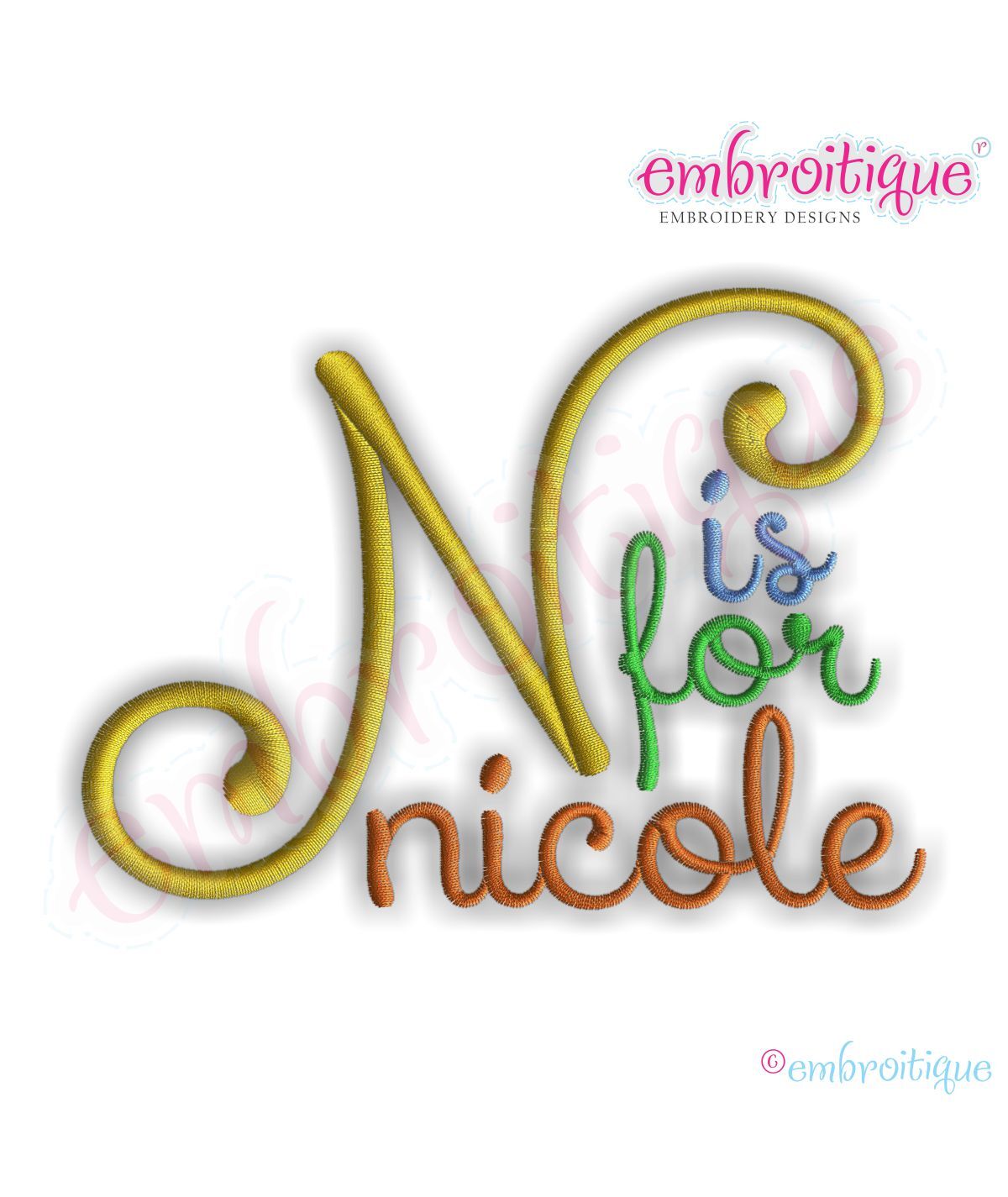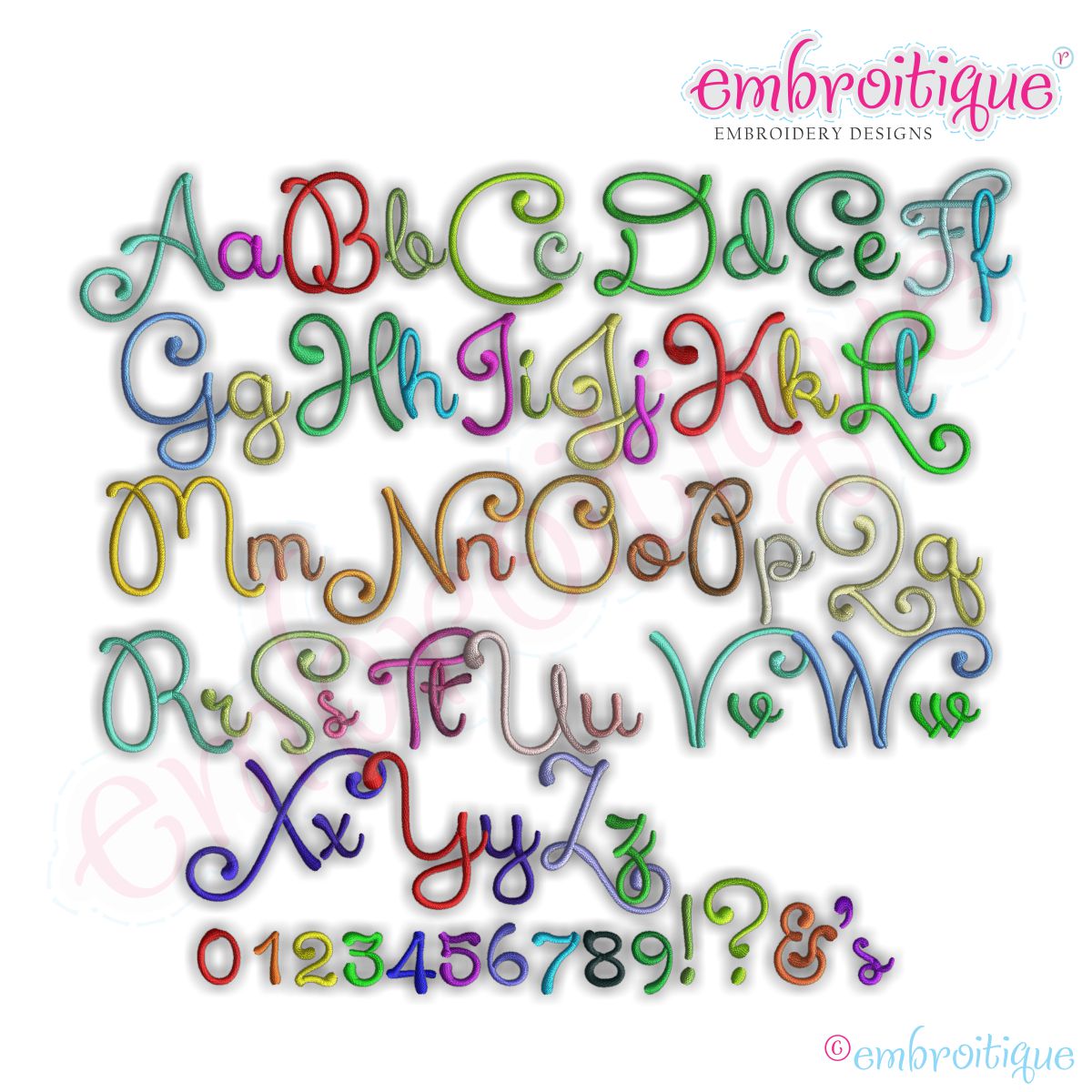
Nicole Monogram Set - Cute and Curly!
This whimsical curly alphabet is perfect for any project. You will receive a full set of letters, numbers, and extra punctuation in the sizes listed below.
Each letter is an individual file that you can use to build monograms, names and sayings.